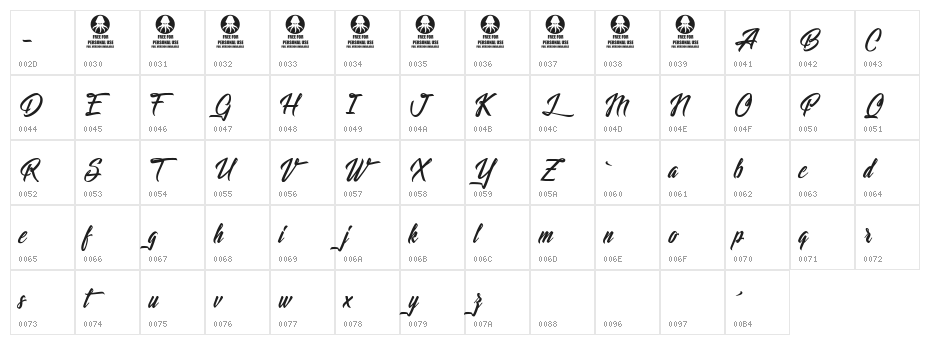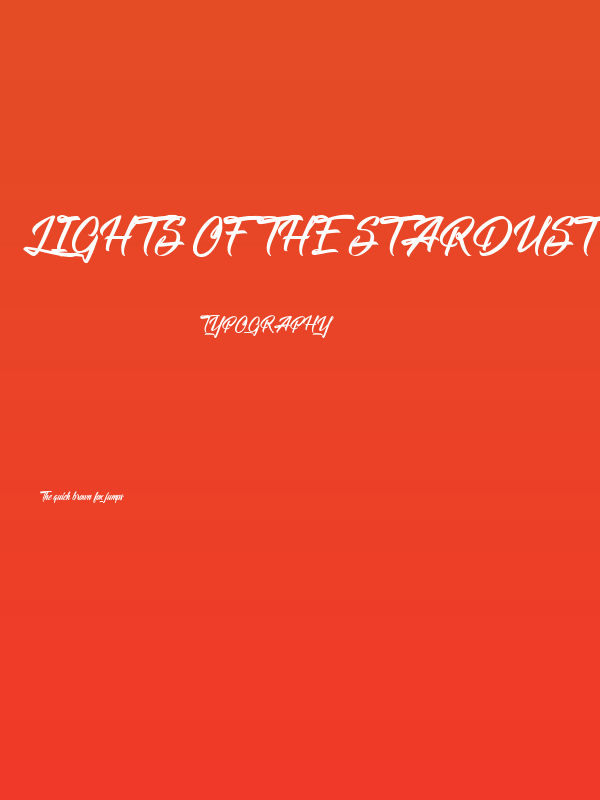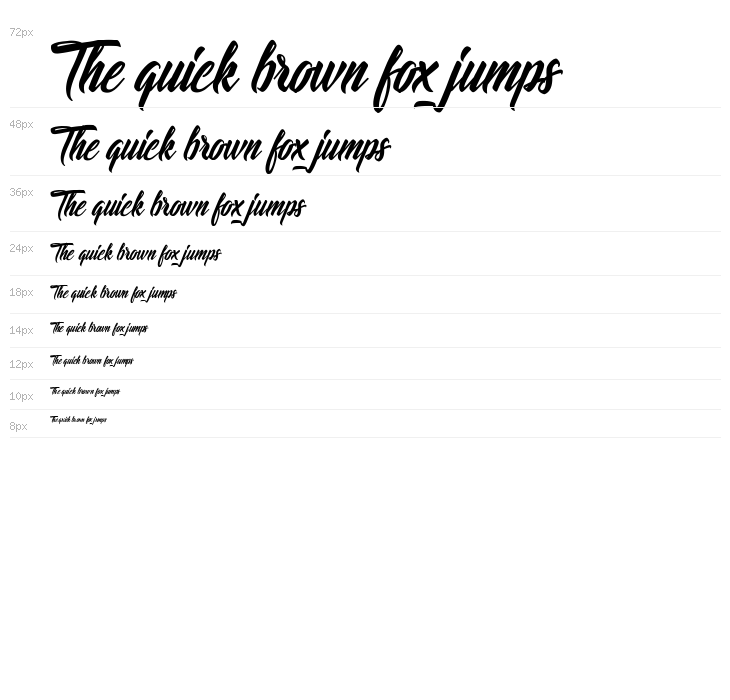
Lights of the Stardust Font
Lights of the Stardust Description
This font exhibits a dynamic and flowing script style, characterized by its elegant and cursive letterforms. The uppercase letters are bold and sweeping, with a sense of movement and flair, while the lowercase letters maintain a consistent rhythm and smooth connectivity. The font's overall appearance is both sophisticated and artistic, making it suitable for creative and expressive design projects. The characters are slightly slanted, adding to the sense of motion and fluidity. The strokes are moderately thick, providing a balanced contrast that enhances readability while maintaining an artistic touch.
| Use Case | Logos, Headlines, Artistic designs |
| Proposed Projects | Ideal for wedding invitations, greeting cards, branding projects, and artistic posters. |